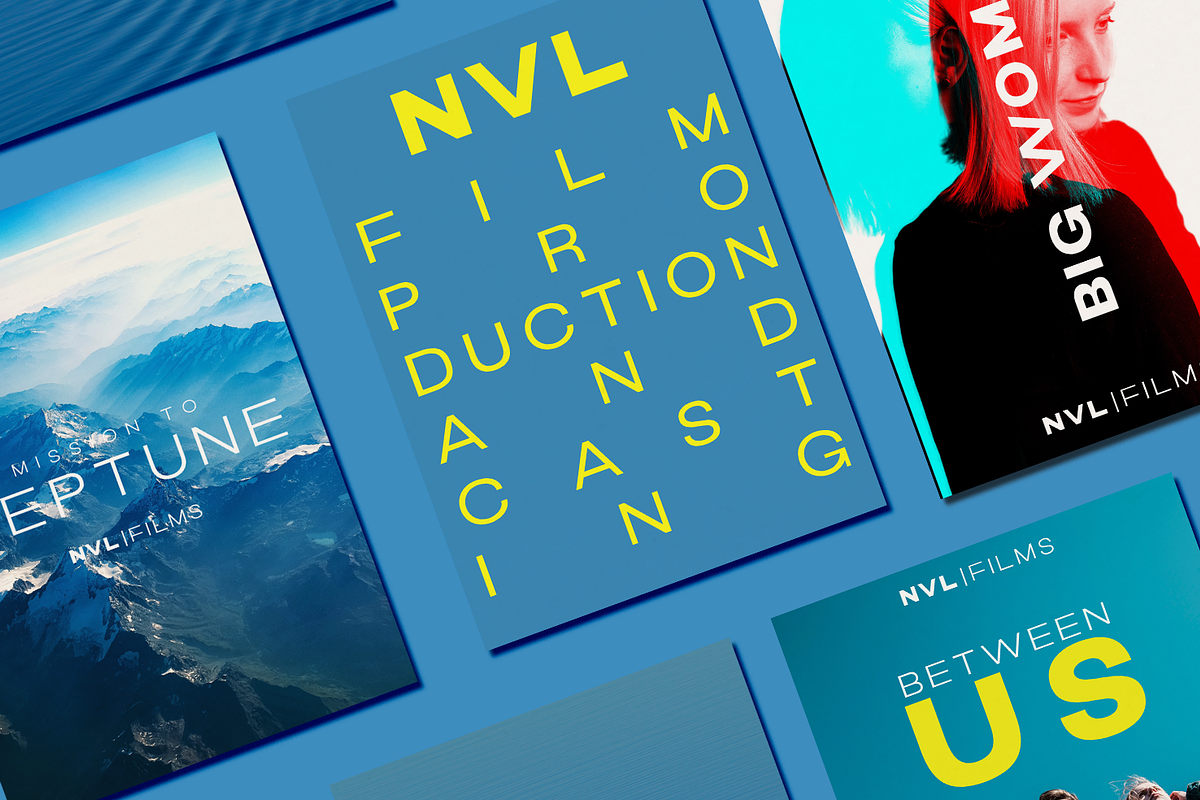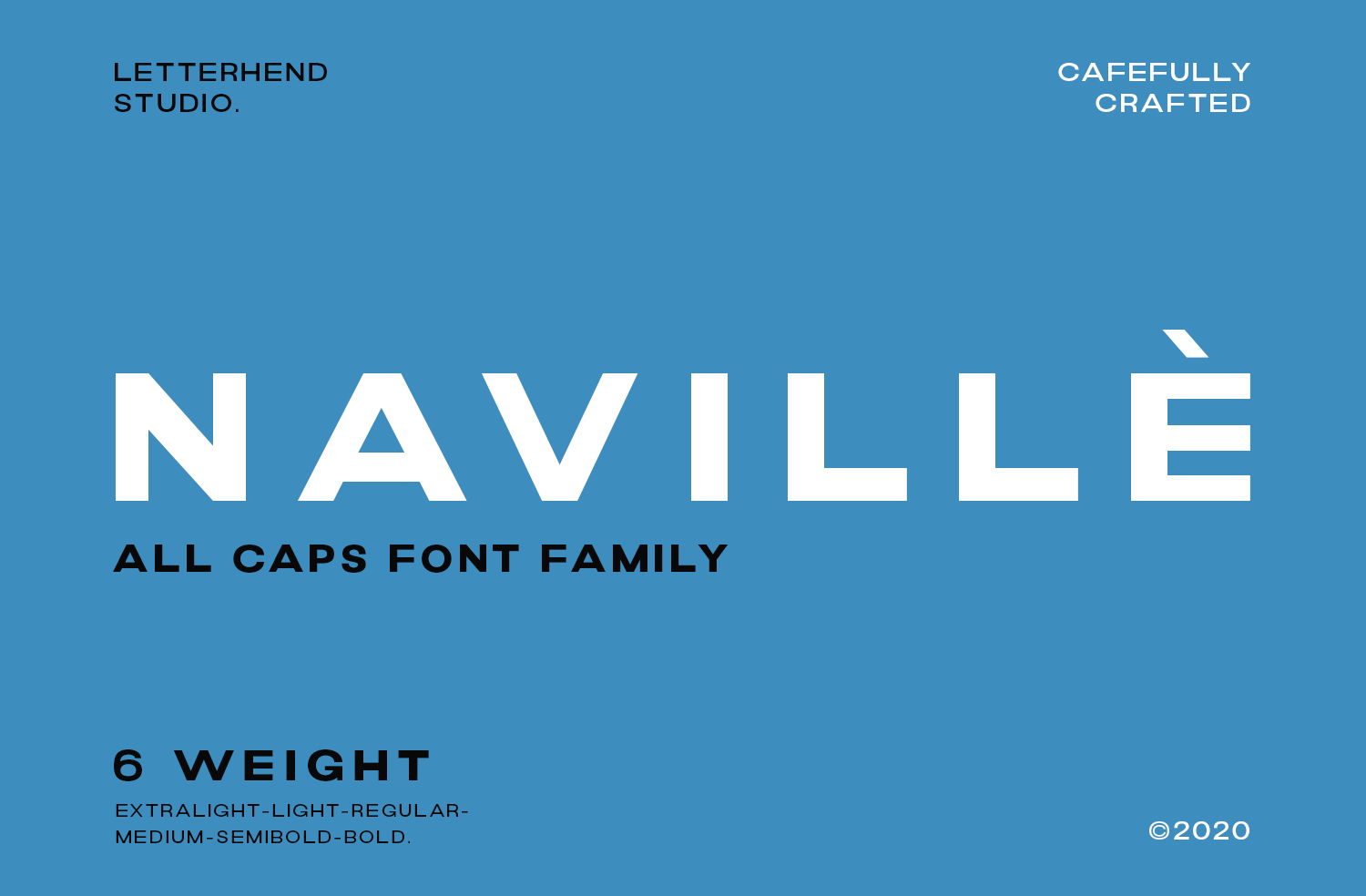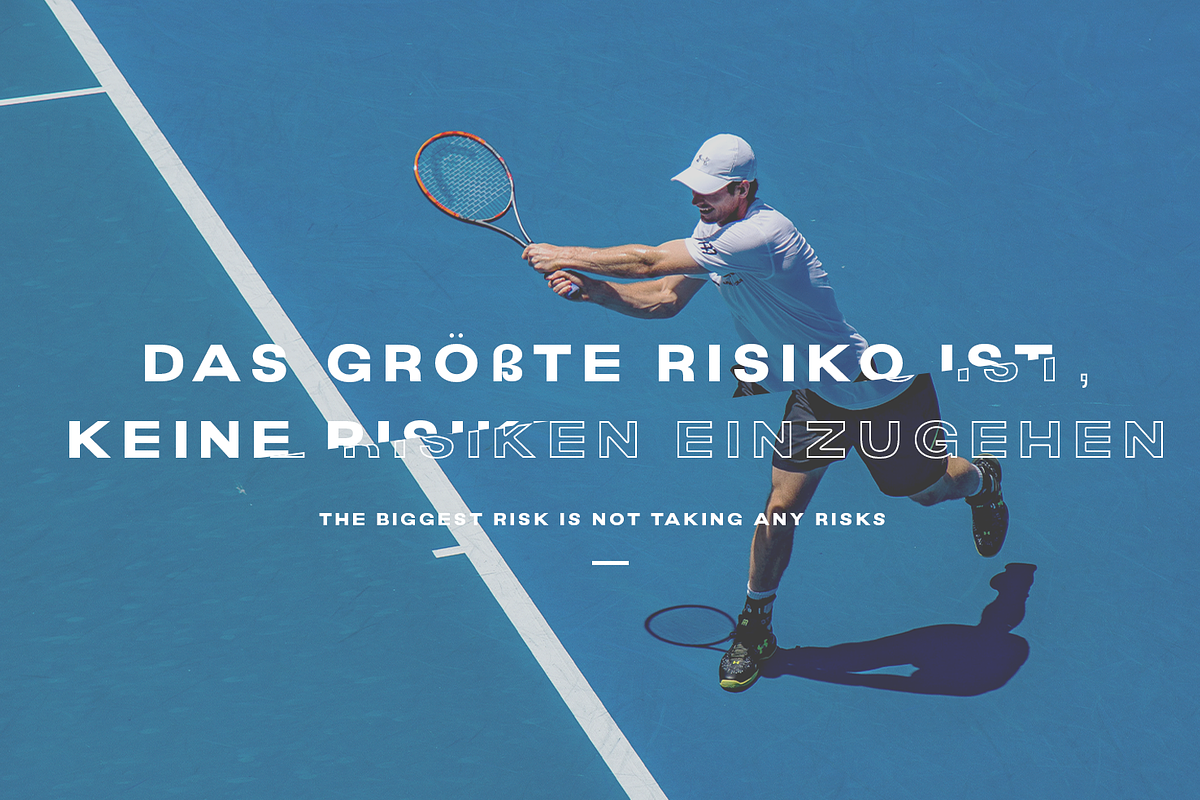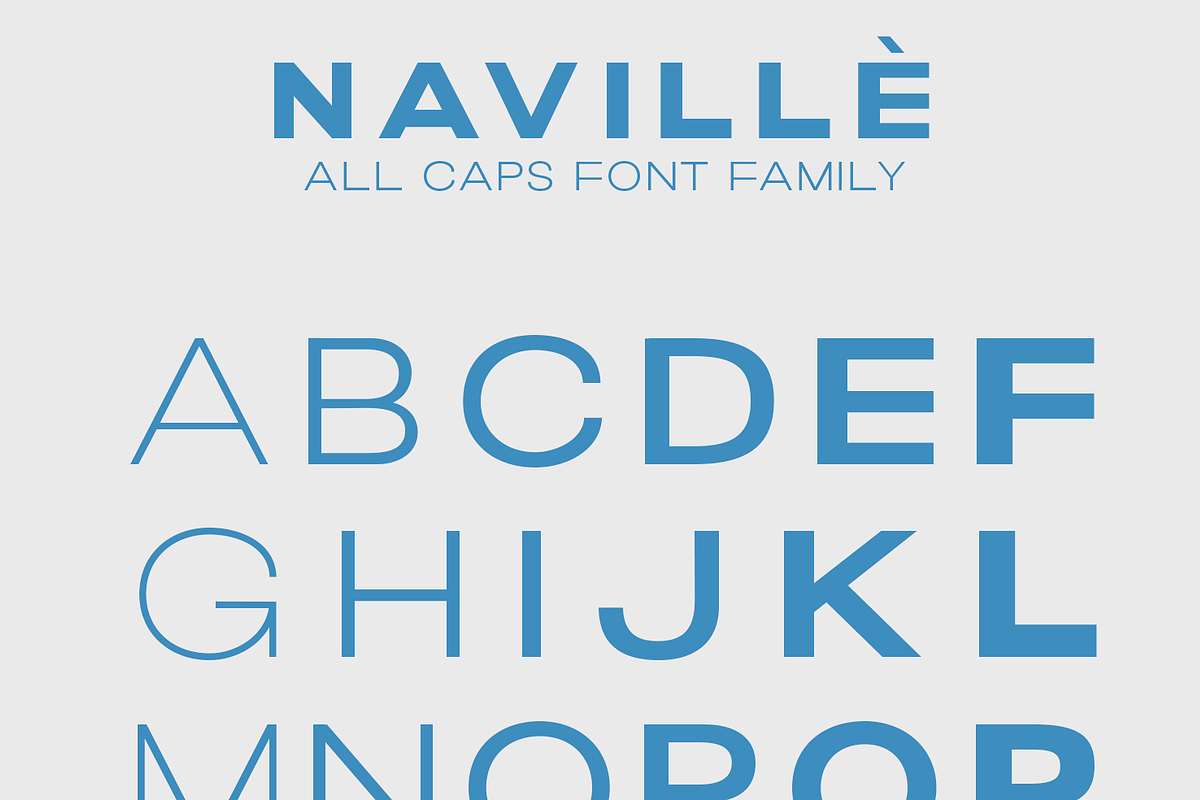
Navillè Family - 6 Fonts
Introducing, Navillè Sans, the all caps font family. This family has 6 weights - extra light, light, reguler, medium, semibold and bold. The clean and simplicity look of the font suitable for wide range of graphic needs especially for headline, title, sign board, information board, billboard and for UI/UX design.
- Support for 17 different languages
- contains 222 glyphs
- Consist of 6 font weights